Fonts for CD Covers: The Visual Identity That Shapes Your Music
Fonts for CD covers. Ever wondered why some CD covers instantly grab your attention even before you hear a single track? It’s not just the artwork. The fonts for CD covers play a huge role in shaping the emotion, identity, and professionalism of your album. In fact, according to a Forbes report, strong visual branding can increase perceived product value by up to 20%. That means the right typeface doesn’t just look good it helps sell your music.
In this article, you’ll explore the types of fonts that truly impact CD cover design, real-world examples, and the psychology behind visual choices that connect with your audience. Whether you’re an independent artist, a graphic designer, or part of a creative team, understanding typography will help you build a memorable album presence.
Why Fonts for CD Covers Matter in Music Branding
Typography is more than letters it’s storytelling. The typeface you choose visually translates your sound, genre, and personality before a listener even hits play. A bold, jagged font may scream rock or metal, while smooth minimalist letters are perfect for indie, pop, or electronic albums.
You’ll soon see how font choices affect perception, audience expectations, and artistic identity.
The Importance of Font Psychology in CD Cover Design
How Typography Creates Emotional Impact
Typography sets the mood even before the music begins. Each type of font communicates a different emotional layer.
- Serif fonts represent elegance, tradition, and warmth
- Sans serif fonts deliver a modern and minimalist feel
- Script fonts create personal and expressive tones
- Display fonts emphasize uniqueness and bold character
The human brain processes visual elements far faster than text. This means your audience forms an impression of your music style instantly through your font choices.
Matching Fonts With Music Genres
When your typography aligns with your music genre, the audience experiences consistency and trust. For example:
- A metal album usually requires sharp, aggressive, or distressed fonts
- A lo fi or indie album feels natural with soft handwritten or minimalist sans serif fonts
- A rap album often benefits from bold or authoritative typefaces
When the visual message matches the sound, the branding becomes stronger and more memorable.
Unique Fonts for CD Covers to Boost Your Album Appeal with the Best Fonts for CD Covers
1. Modim Font
Modim Font delivers a bold and modern character that instantly elevates any CD cover design. Its clean lines and structured appearance create a strong identity that suits pop, electronic, and alternative albums. Discover how Modim Font can transform your next project by exploring the full details on the official page today.
2. Coret Font
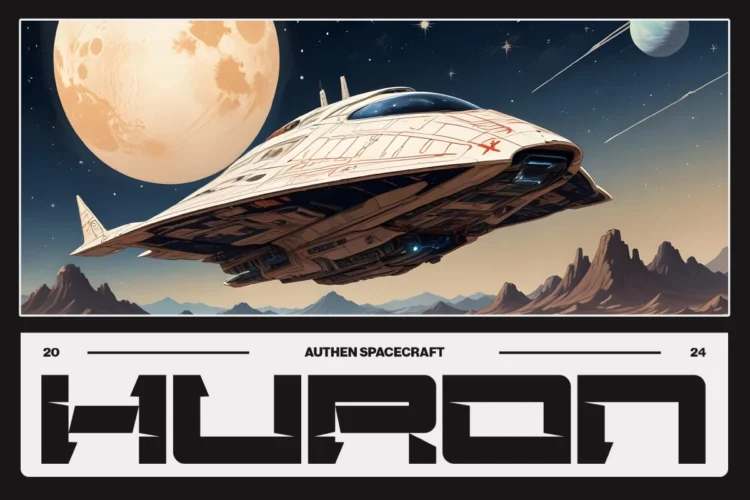
Coret Font brings a raw handwritten charm that feels organic and expressive. This font works perfectly for indie, acoustic, or storytelling driven albums that need a personal touch. Visit its product page to preview how Coret Font can enhance your creative direction.
3. Wesh Font
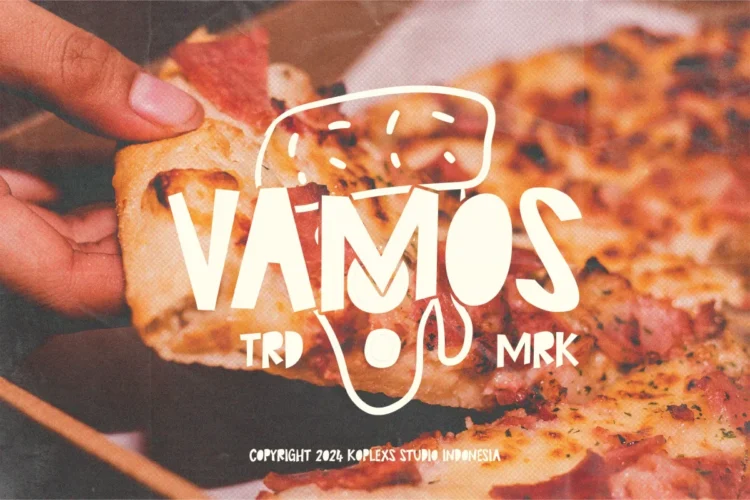
Wesh Font offers a stylish blend of modern curves and artistic flair, making it ideal for vibrant and youthful CD covers. It adds personality to any visual concept and blends smoothly with colorful or minimalist artwork. See how Wesh Font can elevate your album presentation by viewing the full type specimen.
4. Masku Font
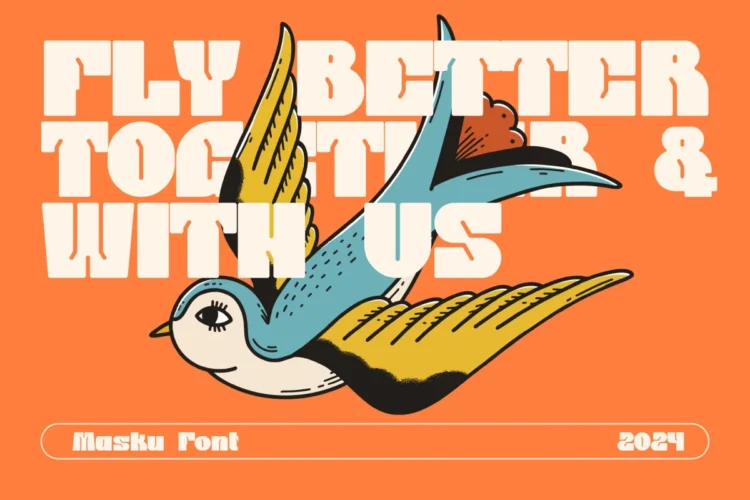
Masku Font features bold strokes and an engaging display style that instantly commands attention. Its unique structure fits rock, metal, and energetic genres that require visual intensity. Explore the complete design possibilities by checking Masku Font on its official page.
5. West Advega Font
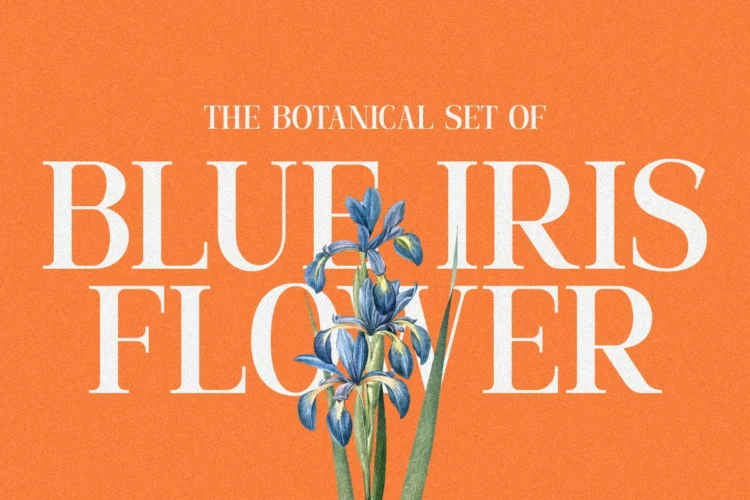
West Advega Font captures a vintage and adventurous spirit that enhances retro themed CD covers. The distinctive serif details make it suitable for folk, country, and classic album concepts. Discover its full potential by accessing the product page and viewing the complete preview.
6. Funky Holiday Font
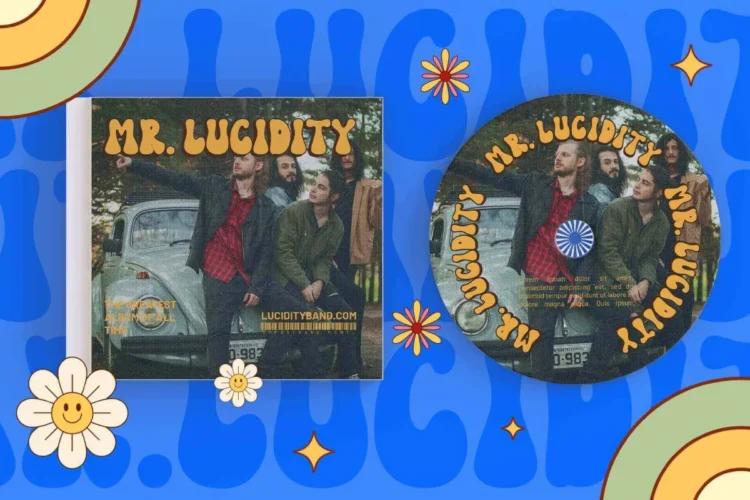
Funky Holiday Font brings playful energy with its fun and bubbly character design. This font is perfect for cheerful pop albums or upbeat music projects that need lively visual expression. Experience its joyful style by seeing the full samples on the product page.
7. Carity Font
Carity Font delivers a refined handwritten flow that fits emotional and acoustic themed albums. The smooth curves add a heartfelt and intimate ambiance to CD cover designs. Check out the complete details to see how Carity Font brings warmth to your visual identity.
8. Master Retro Font
Master Retro Font brings nostalgic charm with authentic retro styling suited for vintage album concepts. Its classic letterforms make your CD cover stand out with personality and character. View the full presentation to experience how Master Retro Font enriches your artwork.
Is it better to use one font or two?
The ideal combination is two fonts. One for the album title and one for supporting text.
What fonts are safe for almost any genre?
Fonts like Amgior Font or Hipo Font are versatile and work with many aesthetic directions.
Do fonts really influence album sales?
Fonts influence branding which affects audience trust. Strong branding can indirectly boost engagement and sales.